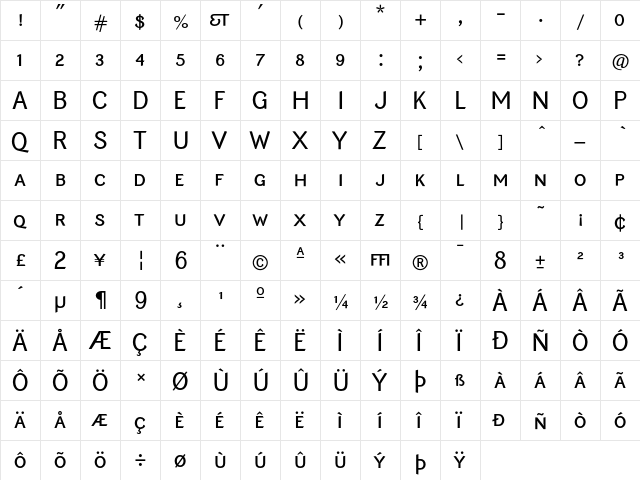
EquipoizeSans Smallcaps
Design Context for EquipoizeSans Typeface
EquipoizeSans takes a measured approach to typography — its balanced proportions and neutral character make it a reliable workhorse for both digital and print work.
Pro Tip: Use EquipoizeSans in both headline and body roles to test its range before committing to a single application.